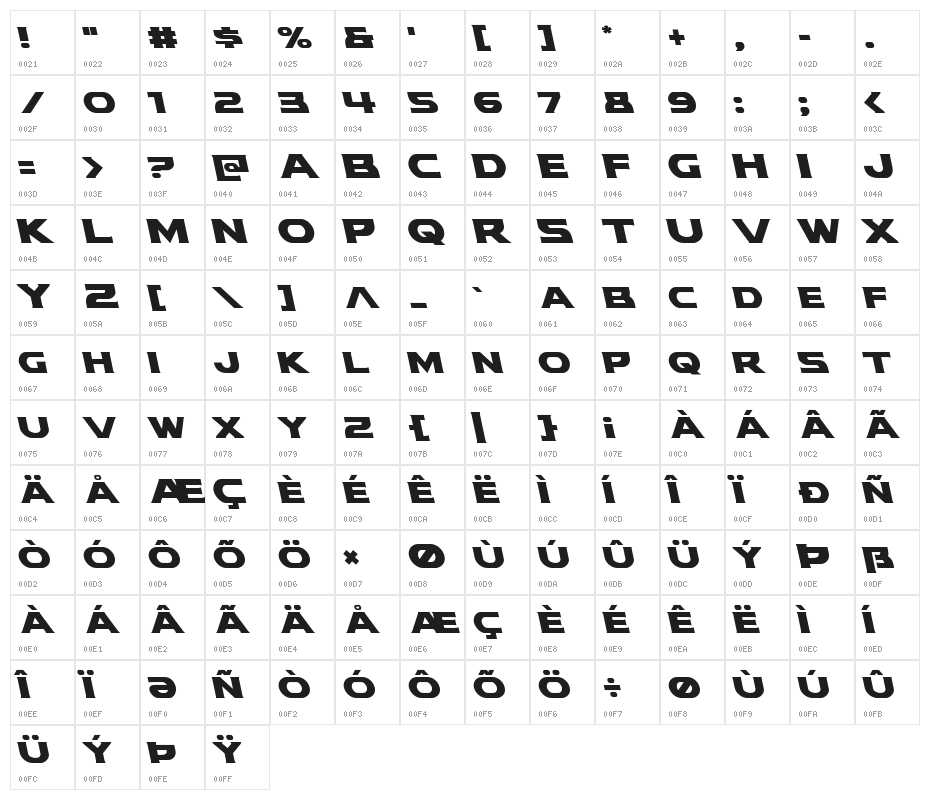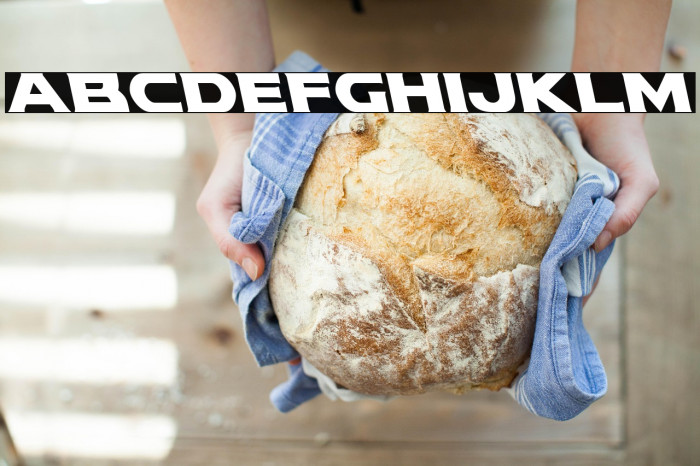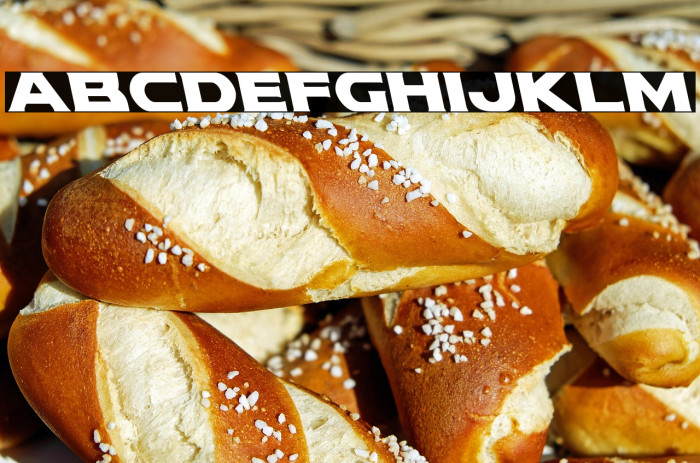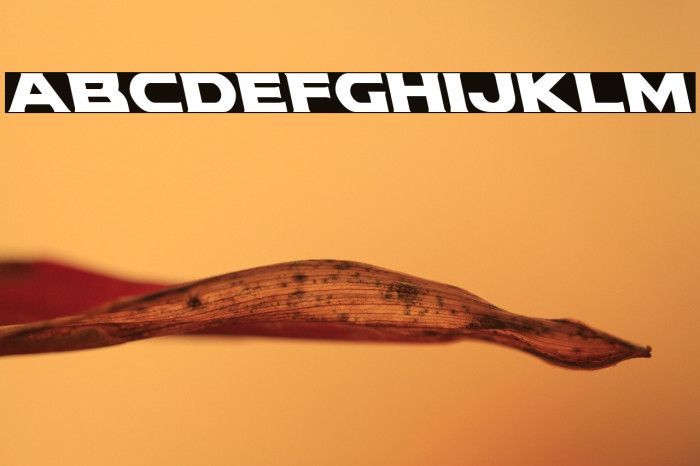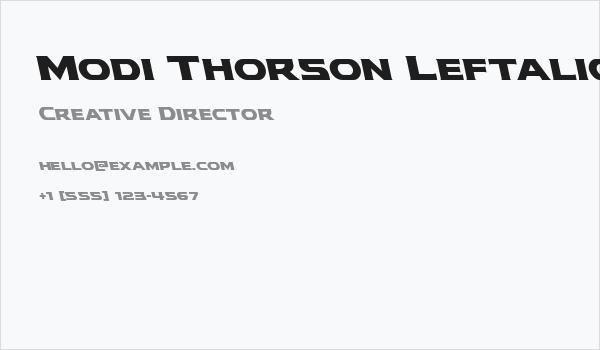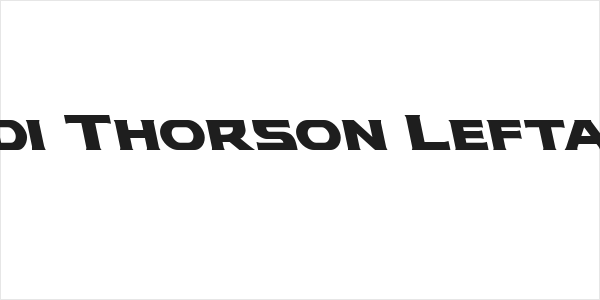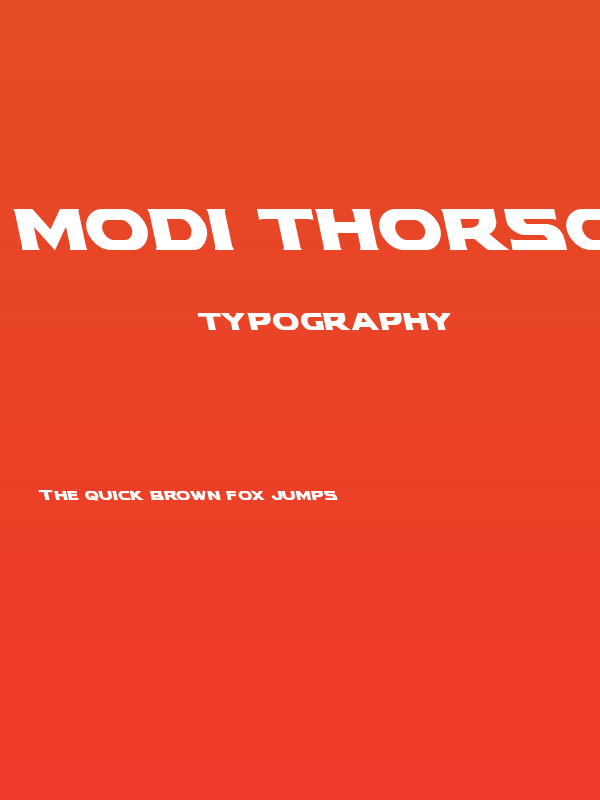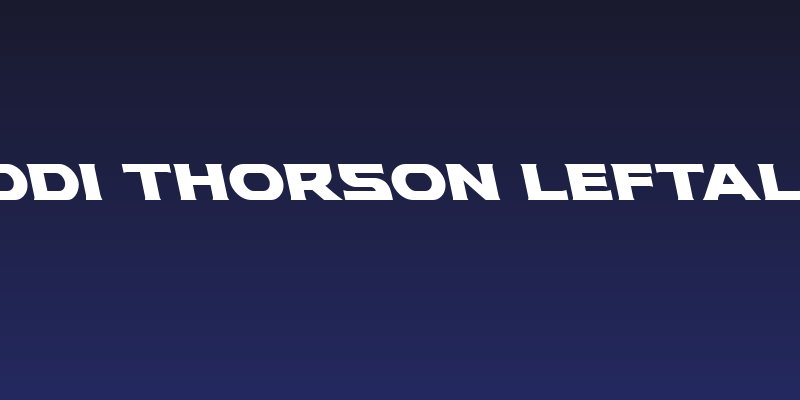
Modi Thorson Leftalic Font
Modi Thorson Leftalic Description
This font exhibits a bold and dynamic style with a distinct slant to the left, giving it a sense of motion and energy. The characters are robust and angular, featuring sharp edges and a strong geometric influence. The uppercase and lowercase letters maintain a consistent weight, contributing to a cohesive appearance. The numerals are equally bold, ensuring readability and impact. Special characters are designed to match the overall aesthetic, with a modern and slightly futuristic feel. This font is well-suited for projects that require a strong visual presence and a contemporary edge.
| Proposed Projects | Ideal for sports branding, action movie posters, video game titles, and dynamic advertising campaigns. |